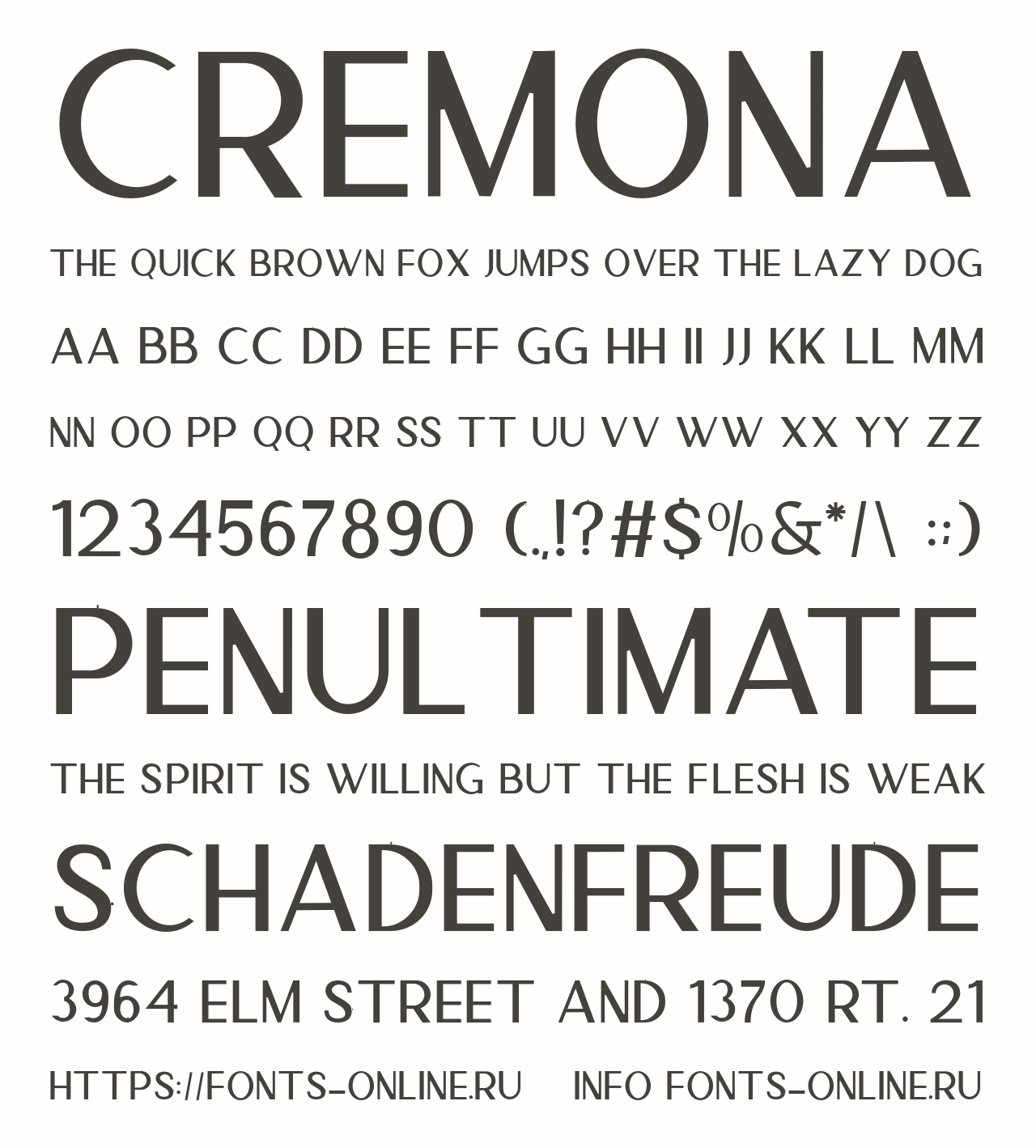
Cremona Free Font . Cremona font is a clean & minimal sans serif font family, makes your design clean. It can be perfect for presentations, magazines, notices, titles,. It’s the ideal font for adding romance & this font part of sans serif. It’s a memorable, fashionable, strong and elegant typeface. Mix and match the rounded. Download the cremona font for free. Cremona font is sans serif font that designed to be functional. This is a sans serif font that boxy and functional. It´s a memorable, fashionable, strong and stylish typeface. In basic > sans serif. Download free for personal use. Introducing cremona font is a clean and minimal sans serif font coming in 2 weights (regular & bold).
It’s a memorable, fashionable, strong and elegant typeface. Download free for personal use. This is a sans serif font that boxy and functional. Download the cremona font for free. Mix and match the rounded. Introducing cremona font is a clean and minimal sans serif font coming in 2 weights (regular & bold). In basic > sans serif. Cremona font is sans serif font that designed to be functional. It’s the ideal font for adding romance & this font part of sans serif. Cremona font is a clean & minimal sans serif font family, makes your design clean.
Cremona Sans Serif Free Font
Cremona Free Font In basic > sans serif. It’s a memorable, fashionable, strong and elegant typeface. Introducing cremona font is a clean and minimal sans serif font coming in 2 weights (regular & bold). Cremona font is a clean & minimal sans serif font family, makes your design clean. Download the cremona font for free. Mix and match the rounded. Download free for personal use. This is a sans serif font that boxy and functional. It’s the ideal font for adding romance & this font part of sans serif. It´s a memorable, fashionable, strong and stylish typeface. It can be perfect for presentations, magazines, notices, titles,. Cremona font is sans serif font that designed to be functional. In basic > sans serif.
Download free Cremona Regular font cremona.ttf Cremona Free Font Introducing cremona font is a clean and minimal sans serif font coming in 2 weights (regular & bold). This is a sans serif font that boxy and functional. Cremona font is sans serif font that designed to be functional. Cremona font is a clean & minimal sans serif font family, makes your design clean. It’s the ideal font for adding. Cremona Free Font.
Cremona Font download free Cremona Free Font Introducing cremona font is a clean and minimal sans serif font coming in 2 weights (regular & bold). It can be perfect for presentations, magazines, notices, titles,. Download the cremona font for free. It´s a memorable, fashionable, strong and stylish typeface. Cremona font is sans serif font that designed to be functional. Mix and match the rounded. It’s the ideal. Cremona Free Font.
Cremona Font Download Free for Desktop & font Cremona Free Font Mix and match the rounded. It´s a memorable, fashionable, strong and stylish typeface. Introducing cremona font is a clean and minimal sans serif font coming in 2 weights (regular & bold). This is a sans serif font that boxy and functional. It’s a memorable, fashionable, strong and elegant typeface. Download the cremona font for free. It’s the ideal font for. Cremona Free Font.
Download free Cremona Regular font cremona.ttf Cremona Free Font Cremona font is a clean & minimal sans serif font family, makes your design clean. Introducing cremona font is a clean and minimal sans serif font coming in 2 weights (regular & bold). It can be perfect for presentations, magazines, notices, titles,. In basic > sans serif. This is a sans serif font that boxy and functional. Download free for. Cremona Free Font.
Cremona font Cremona Free Font This is a sans serif font that boxy and functional. Mix and match the rounded. It’s the ideal font for adding romance & this font part of sans serif. It´s a memorable, fashionable, strong and stylish typeface. It’s a memorable, fashionable, strong and elegant typeface. It can be perfect for presentations, magazines, notices, titles,. Download the cremona font for free.. Cremona Free Font.
Cremona Fonts Shmonts Cremona Free Font It´s a memorable, fashionable, strong and stylish typeface. It can be perfect for presentations, magazines, notices, titles,. Download free for personal use. It’s the ideal font for adding romance & this font part of sans serif. In basic > sans serif. Download the cremona font for free. Cremona font is sans serif font that designed to be functional. Introducing cremona. Cremona Free Font.
Cremona Free Font at Isabella Motley blog Cremona Free Font Mix and match the rounded. This is a sans serif font that boxy and functional. It can be perfect for presentations, magazines, notices, titles,. In basic > sans serif. It’s a memorable, fashionable, strong and elegant typeface. Download free for personal use. Download the cremona font for free. Introducing cremona font is a clean and minimal sans serif font coming. Cremona Free Font.
Cremona Font · 1001 Fonts Cremona Free Font In basic > sans serif. It’s the ideal font for adding romance & this font part of sans serif. It’s a memorable, fashionable, strong and elegant typeface. It´s a memorable, fashionable, strong and stylish typeface. Introducing cremona font is a clean and minimal sans serif font coming in 2 weights (regular & bold). Cremona font is sans serif font that. Cremona Free Font.
Cremona Sans Font on Behance Free Typeface, Sans Serif Typeface, Free Cremona Free Font It’s the ideal font for adding romance & this font part of sans serif. This is a sans serif font that boxy and functional. It’s a memorable, fashionable, strong and elegant typeface. Introducing cremona font is a clean and minimal sans serif font coming in 2 weights (regular & bold). It´s a memorable, fashionable, strong and stylish typeface. Cremona font. Cremona Free Font.